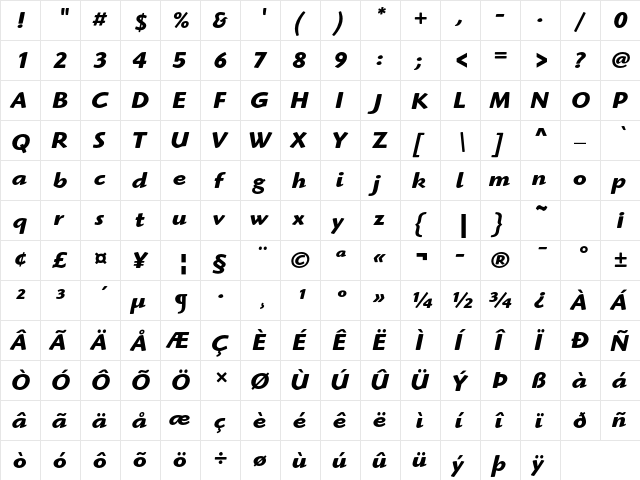
ITC Highlander Std Bold Italic
| Designer | David Farey |
Design Context for ITC Highlander Std Typeface
ITC Highlander Std takes a measured approach to typography — its balanced proportions and neutral character make it a reliable workhorse for both digital and print work. Its italic angle brings a sense of urgency and motion to the letterforms. Its bold stroke weight gives it real presence on the page.
Pro Tip: Use ITC Highlander Std for emphasis, pull quotes, and subheadings where its slanted energy can add rhythm to the layout.